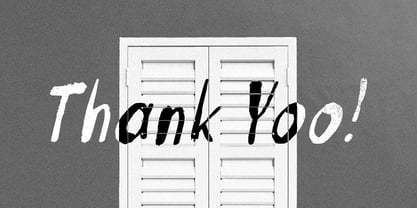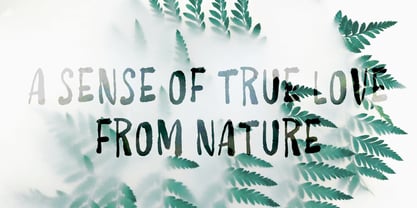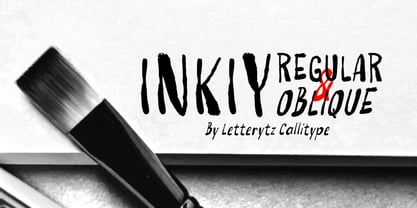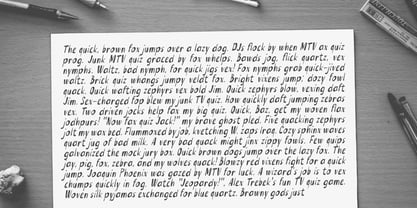
The Inkiy Font Family was designed by Wahyu Eka Prasetya, Dian Angga Marytama and published by Letterytz CalliType. Inkiy contains 2 styles and family package options. More about this family
Say hello to Inkiy — a rugged, handcrafted brush font that brings a natural, spontaneous energy to your designs.
Inspired by bold ink strokes and artistic imperfection, Inkiy is perfect for projects that demand character and a personal touch.
Available in Regular and Oblique styles, Inkiy offers versatility whether you want a grounded look or something more dynamic.
Each letter has an organic flow with subtle texture details, making it ideal for posters, branding, social media, packaging, and creative headlines.
Complete with alternates, punctuation, and multilingual support, Inkiy is made for designers who aren’t afraid to make a bold statement.
Designers: Wahyu Eka Prasetya, Dian Angga Marytama
Foundry: Letterytz CalliType
Inkiy